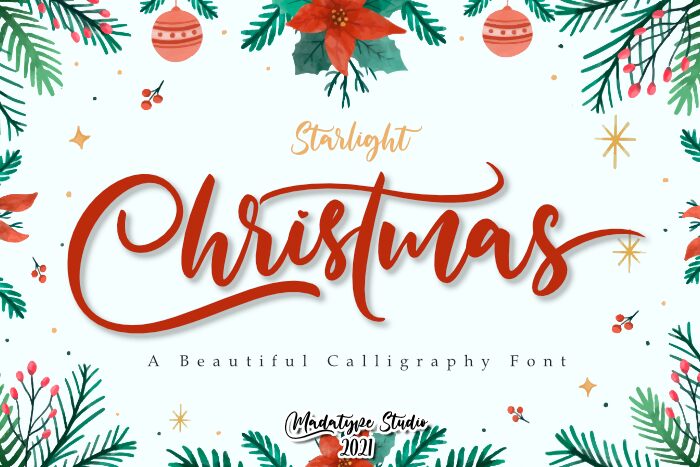
Introducing the beautiful calligraphy font, Starlight of Christmas, designed by Andri Ardianto & Madatype Studio. This light-weight font is perfect for crafting elegant holiday cards, wedding invitations or adding a special touch to any creative project.